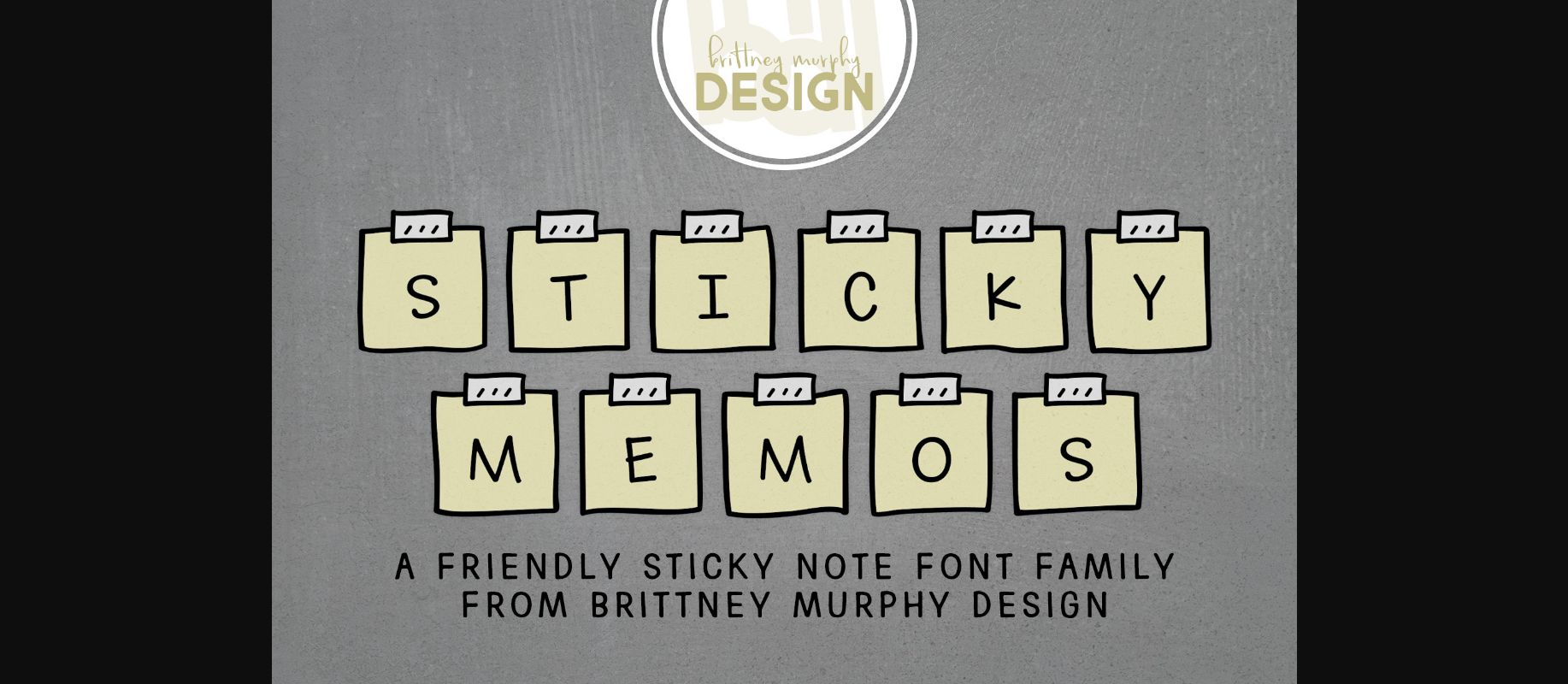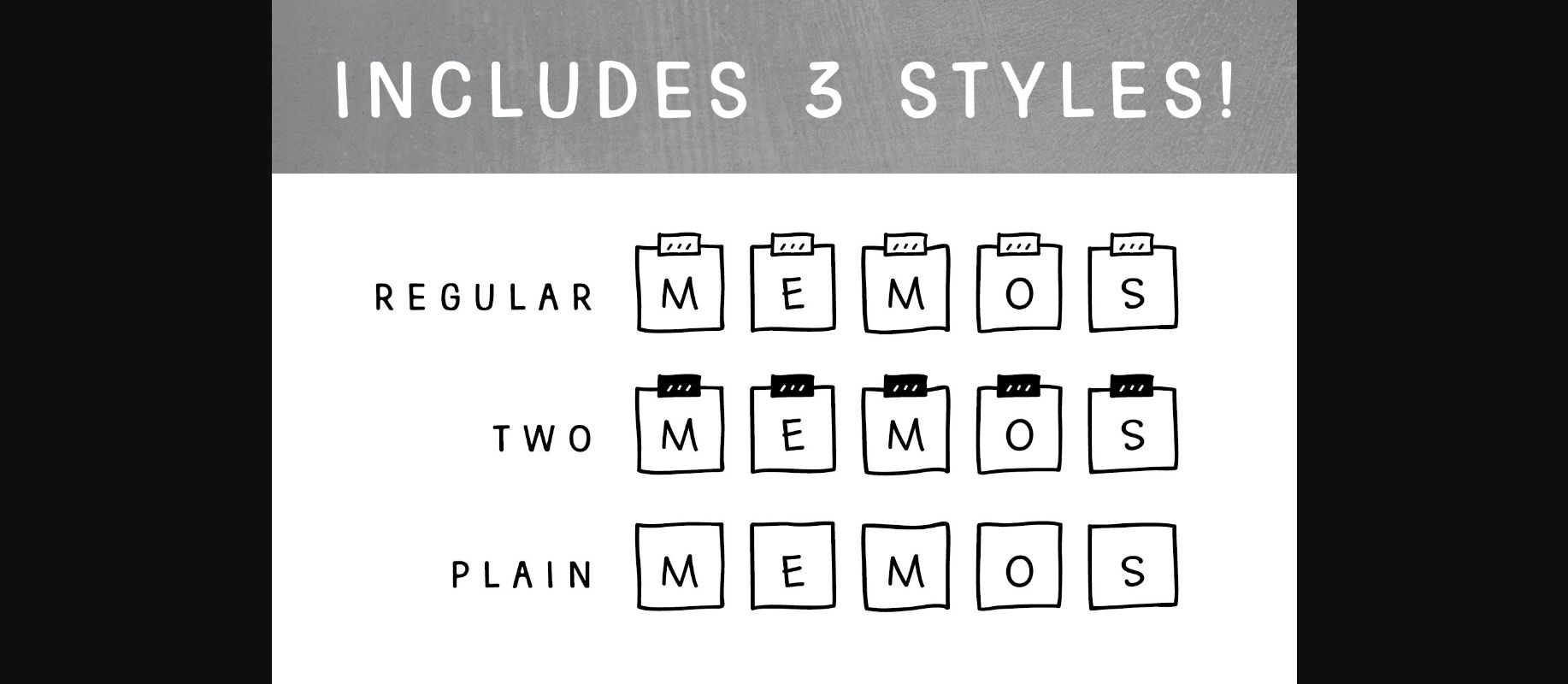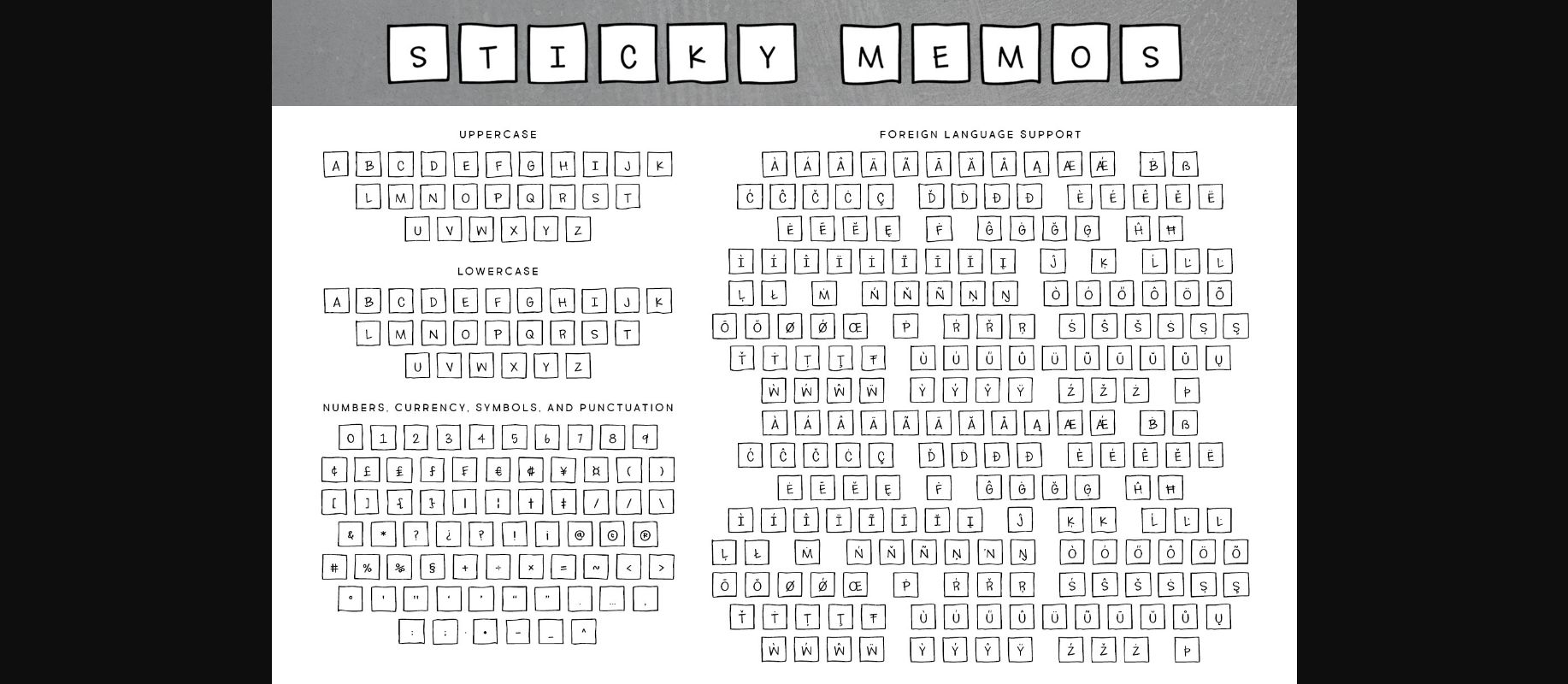
Sticky Memos Font
About Sticky Memos Font
Sticky Memos is a cute decorative font that is a delightful addition to any project. Featuring letters enclosed in small boxes, this font adds a playful touch to any design. Its charming and whimsical nature makes it perfect for children’s books, greeting cards, and other creative projects that require a touch of cuteness.